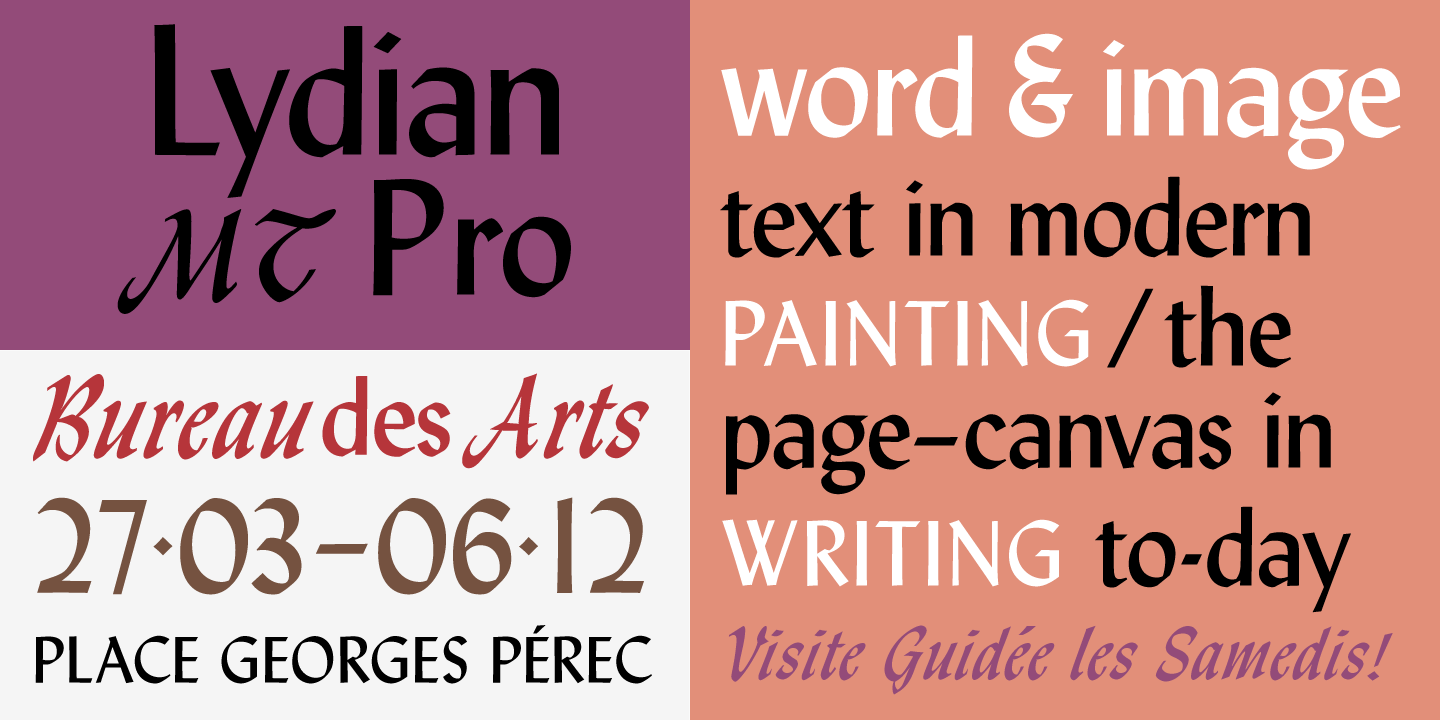
Monotype Lydian Font is perfect for classic book publishing, literary magazines, academic journals, historical documents, vintage branding, traditional invitations, classical music programs, museum exhibitions, prestigious awards, heritage brand identities, and timeless editorial designs.
Monotype Lydian Font is exciting because it embodies the distinguished elegance of classical typography with its refined letterforms that have graced prestigious publications for decades. Its sophisticated character design reflects the golden age of typographic excellence while maintaining contemporary relevance, making it perfect for projects that demand both historical authenticity and enduring sophistication.
Monotype Lydian Font family includes regular, italic, bold, and bold italic weights, along with traditional small caps, old-style figures, and classical ligatures. The font family also features extensive punctuation sets, scholarly symbols, and traditional typographic ornaments that enhance its academic and literary applications.
This distinguished typeface represents the pinnacle of classical typographic heritage. Monotype Lydian Font Free Download allows designers to experience its scholarly elegance before making a commercial investment. The font's ability to convey intellectual authority and timeless sophistication makes it ideal for institutions and brands seeking to establish credible, prestigious identities.
Whether you're designing academic publications, creating heritage brand materials, or developing classical literary projects, Monotype Lydian Font delivers exceptional scholarly appeal and typographic excellence. Its refined character and historical significance ensure lasting impact while maintaining optimal readability for extended text applications.
The font's versatility excels in intellectual and cultural environments where tradition and scholarship are highly valued. Its classical heritage makes it particularly effective for universities, museums, publishing houses, and cultural institutions seeking to communicate authority and academic distinction.
For designers working on projects requiring classical typographic excellence and scholarly credibility, Monotype Lydian Font provides an exceptional solution. Its distinguished heritage and comprehensive character set offer the tools needed for prestigious communications, while its timeless appeal ensures your designs maintain relevance and respect across generations.